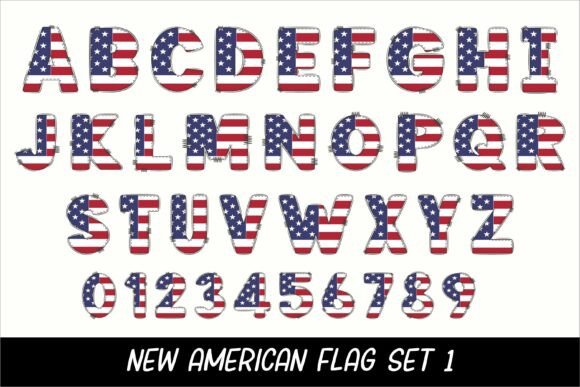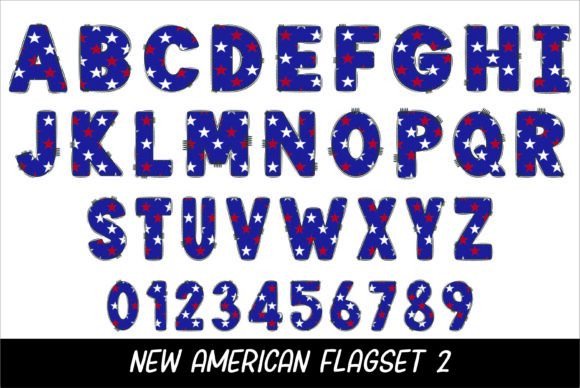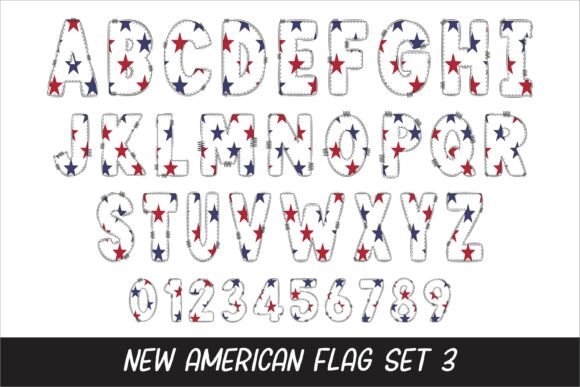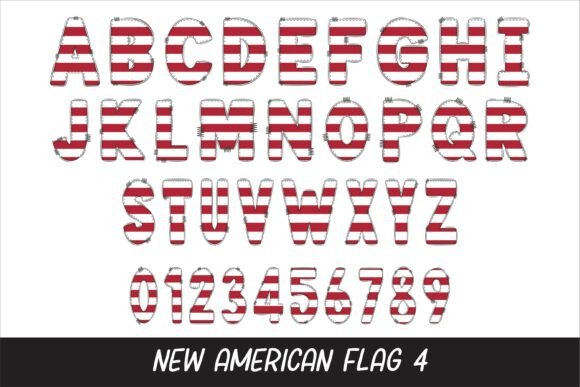
Introduction to New American Flag Font
Celebrate patriotism and the bold American spirit with the New American Flag Bundle 4 Font.
This unique display color typeface immediately captures attention with its vibrant, stars-and-stripes-filled glyphs Each character in the New American Flag Bundle 4 font is meticulously designed to showcase the iconic patterns of the American flag, featuring alternating red and white stripes and a field of blue with white stars.
Key Features of New American Flag Font